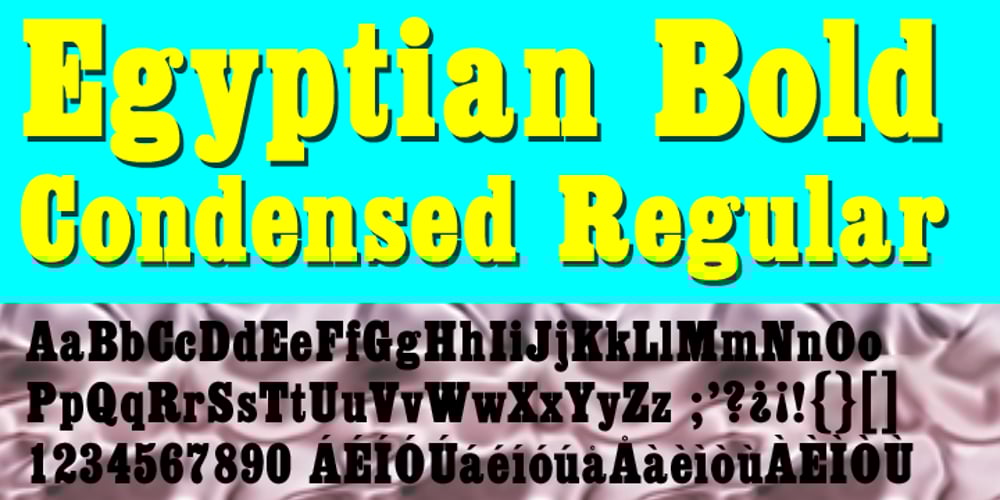
Egyptian ExtraBold Condensed
Egyptian ExtraBold Condensed font
Egyptian ExtraBold Condensed Font Family was designed by Jordan Davies and published by Wooden Type Fonts. Egyptian ExtraBold Condensed contains 1 styles and family package options. One of the original Egyptian types. With a tall x-height, very short descenders.